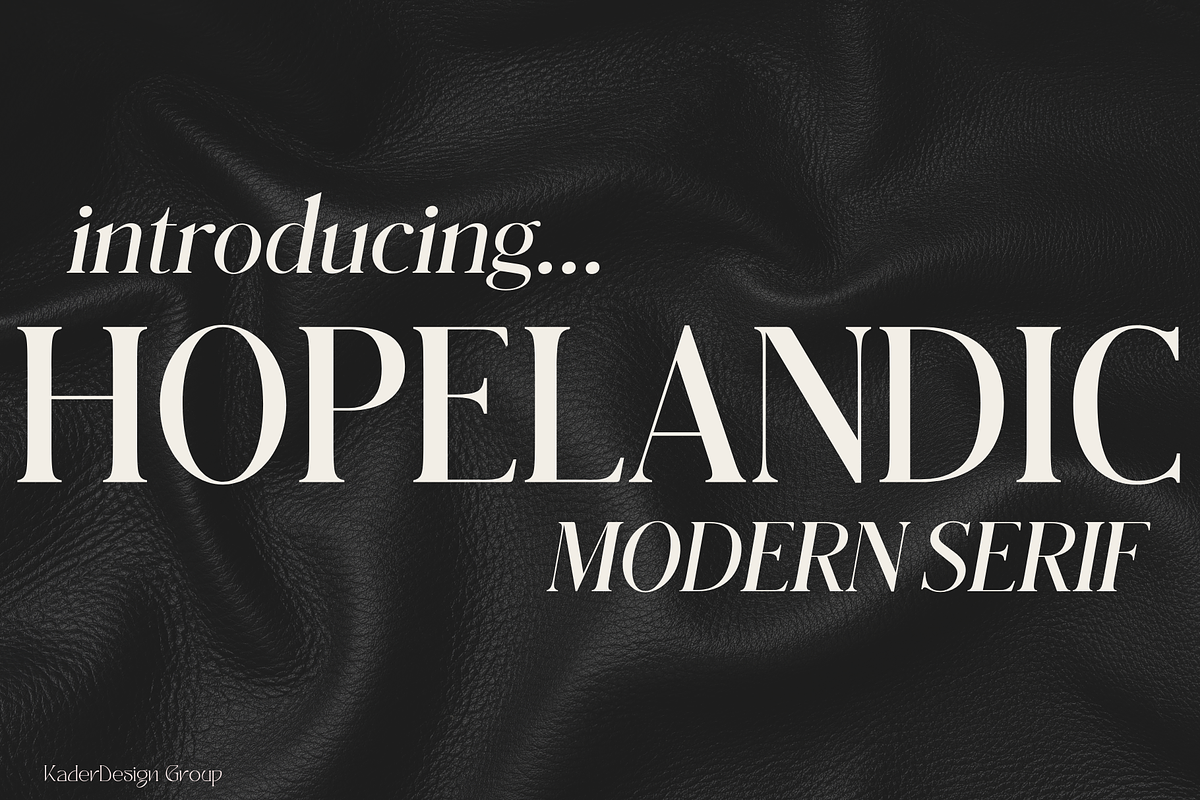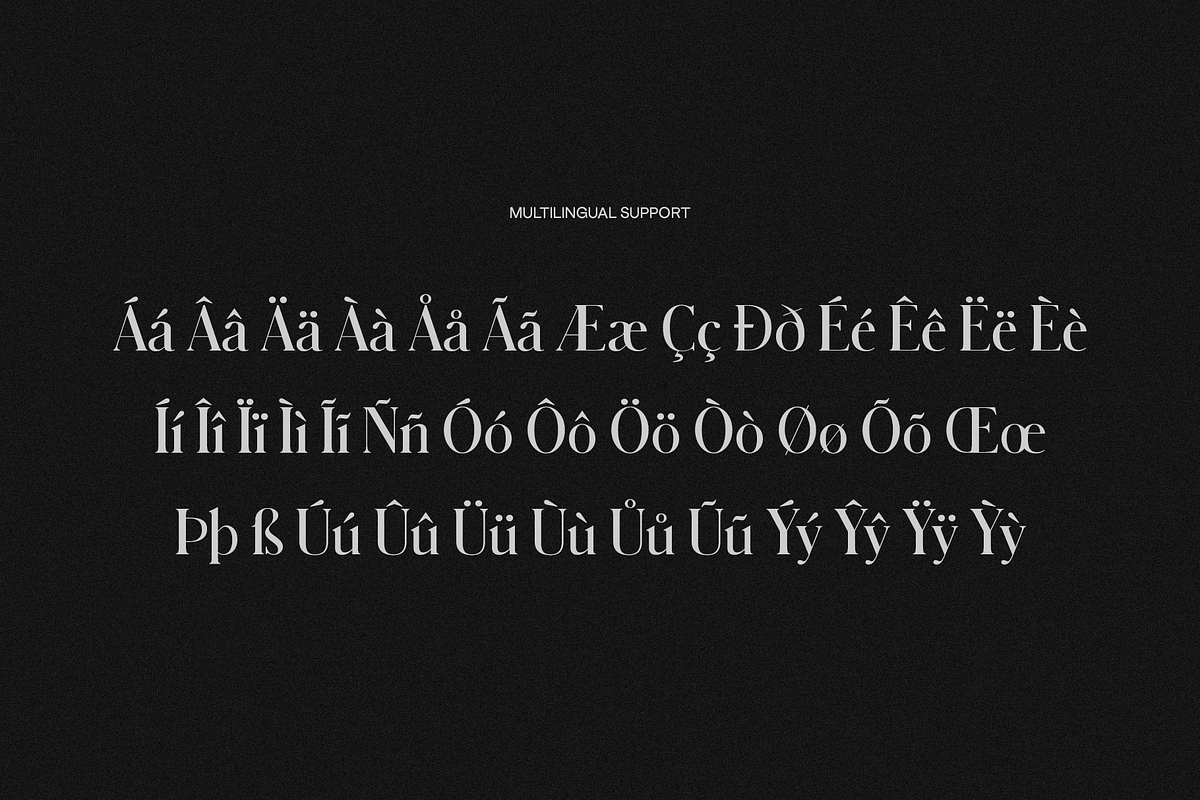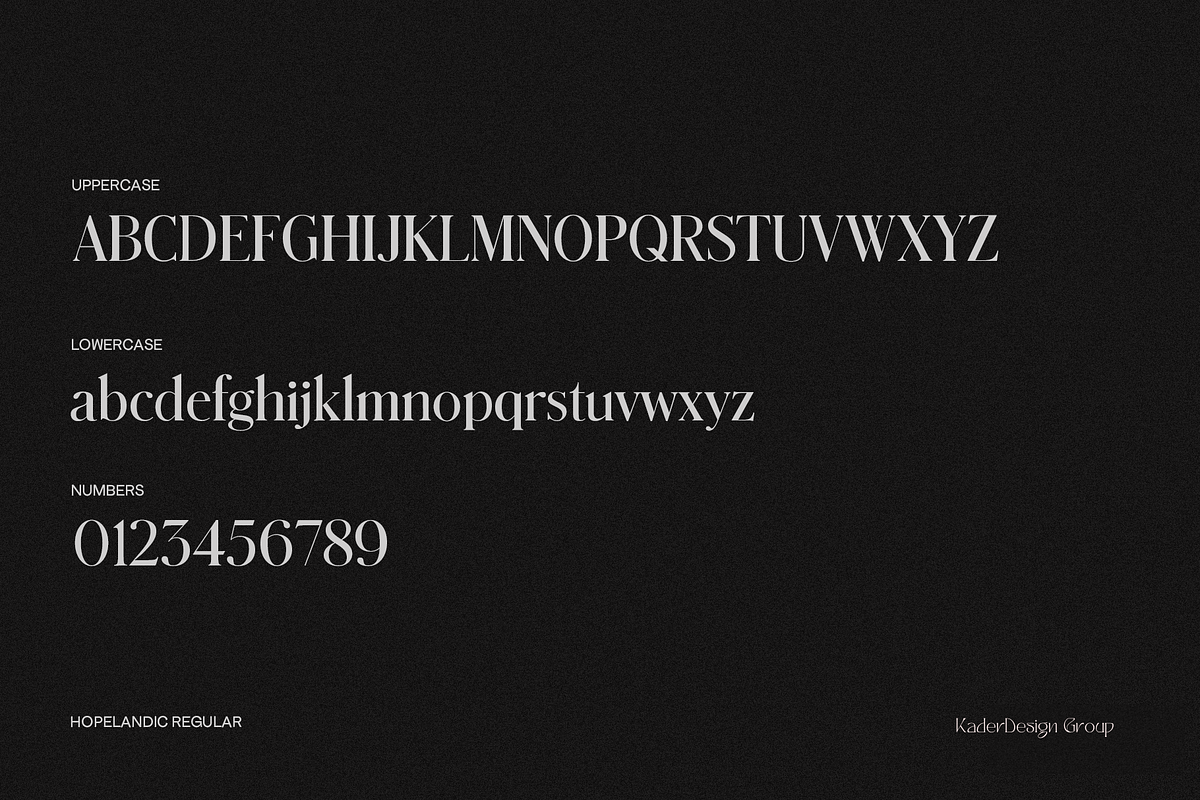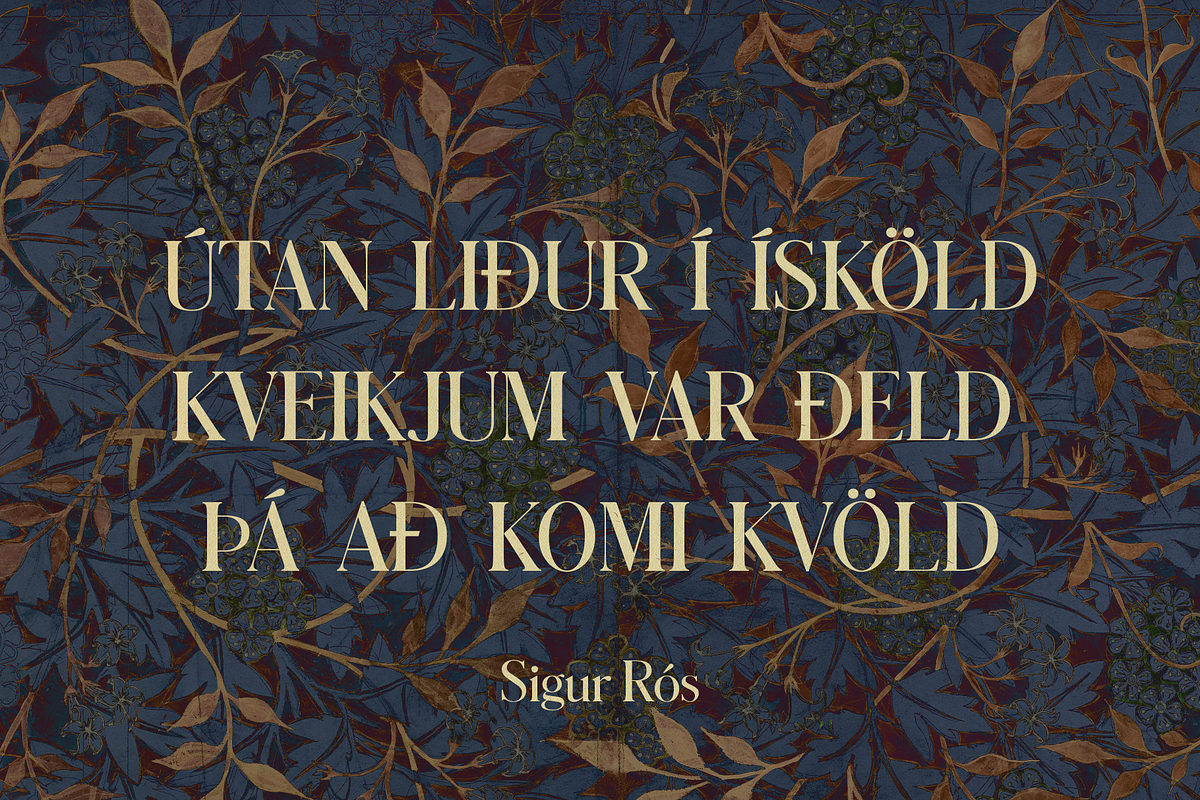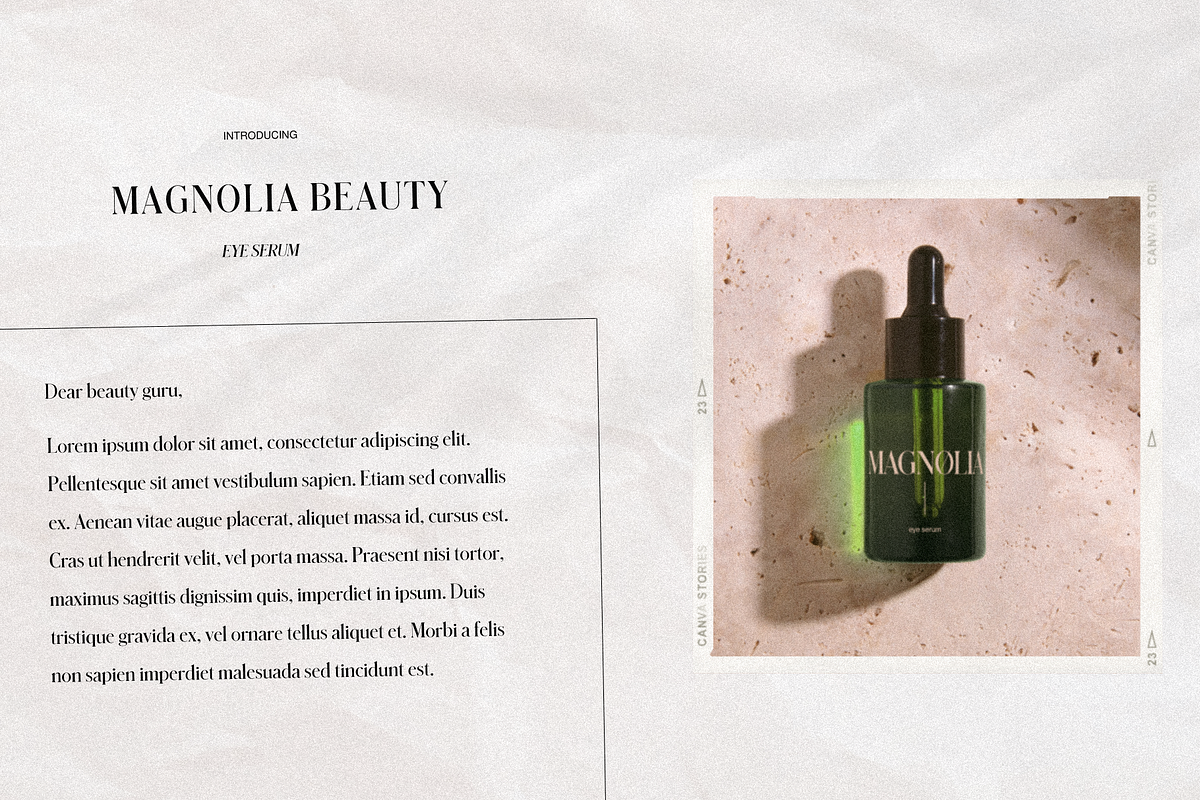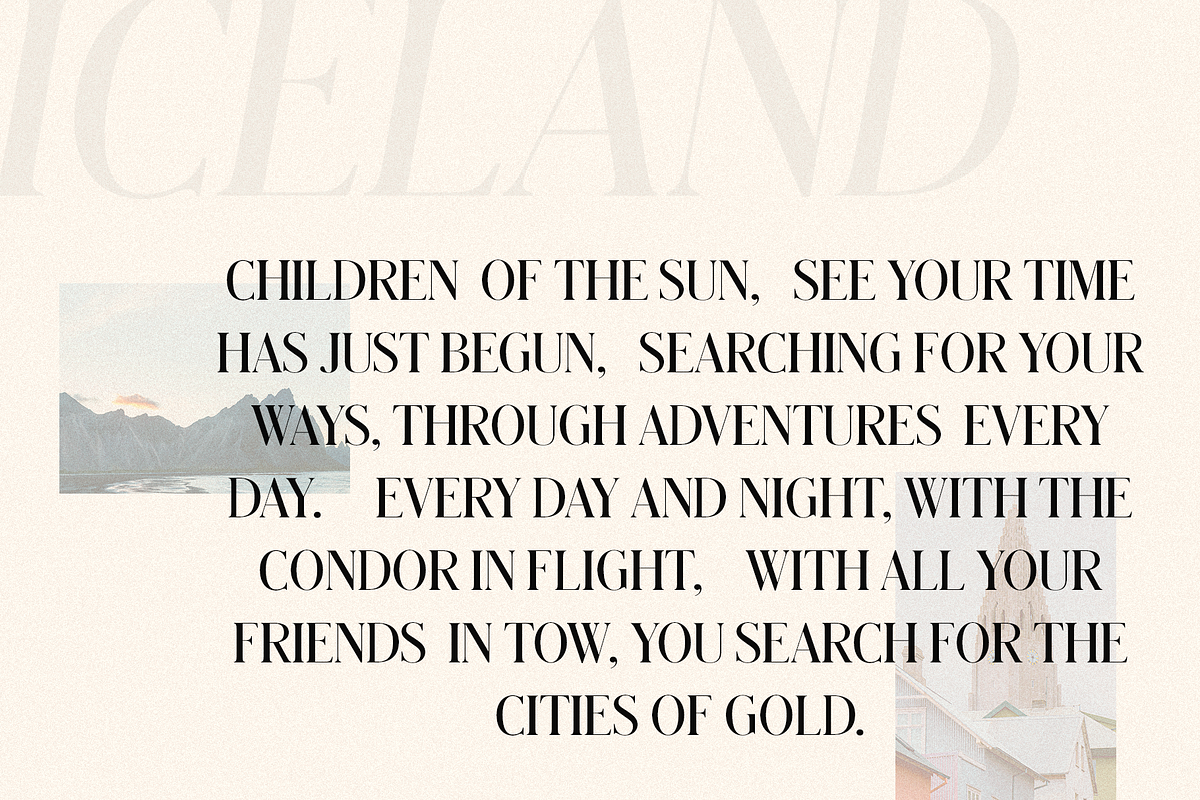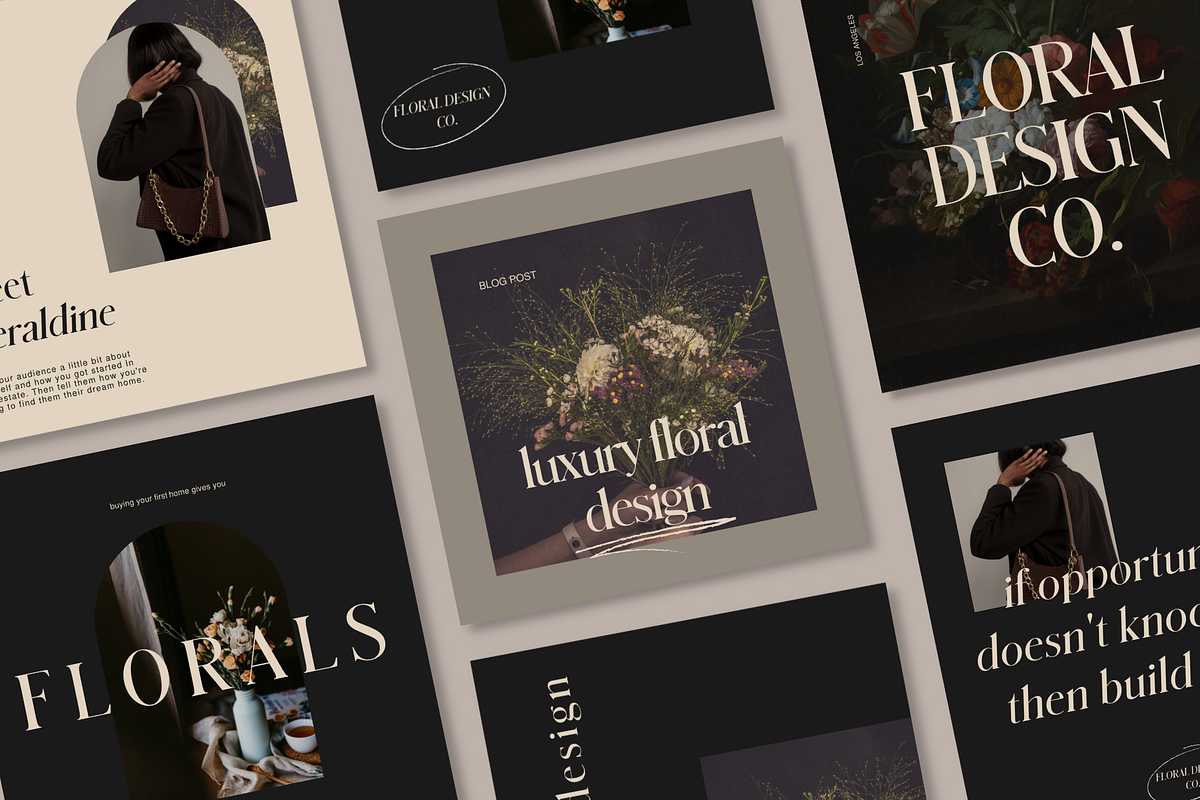
HOPELANDIC Modern Serif
Introducing HOPELANDIC Regular & Oblique - a modern serif typeface inspired by Icelandic vistas that can be used for just about anything. It's clean, sophisticated and stylishly classic. I hope you enjoy it!
- Multilingual support: Danish, English, Finnish, French, German, Icelandic, Italian, Luxembourgish, Norwegian Portuguese, Spanish, Swedish, Swiss German.